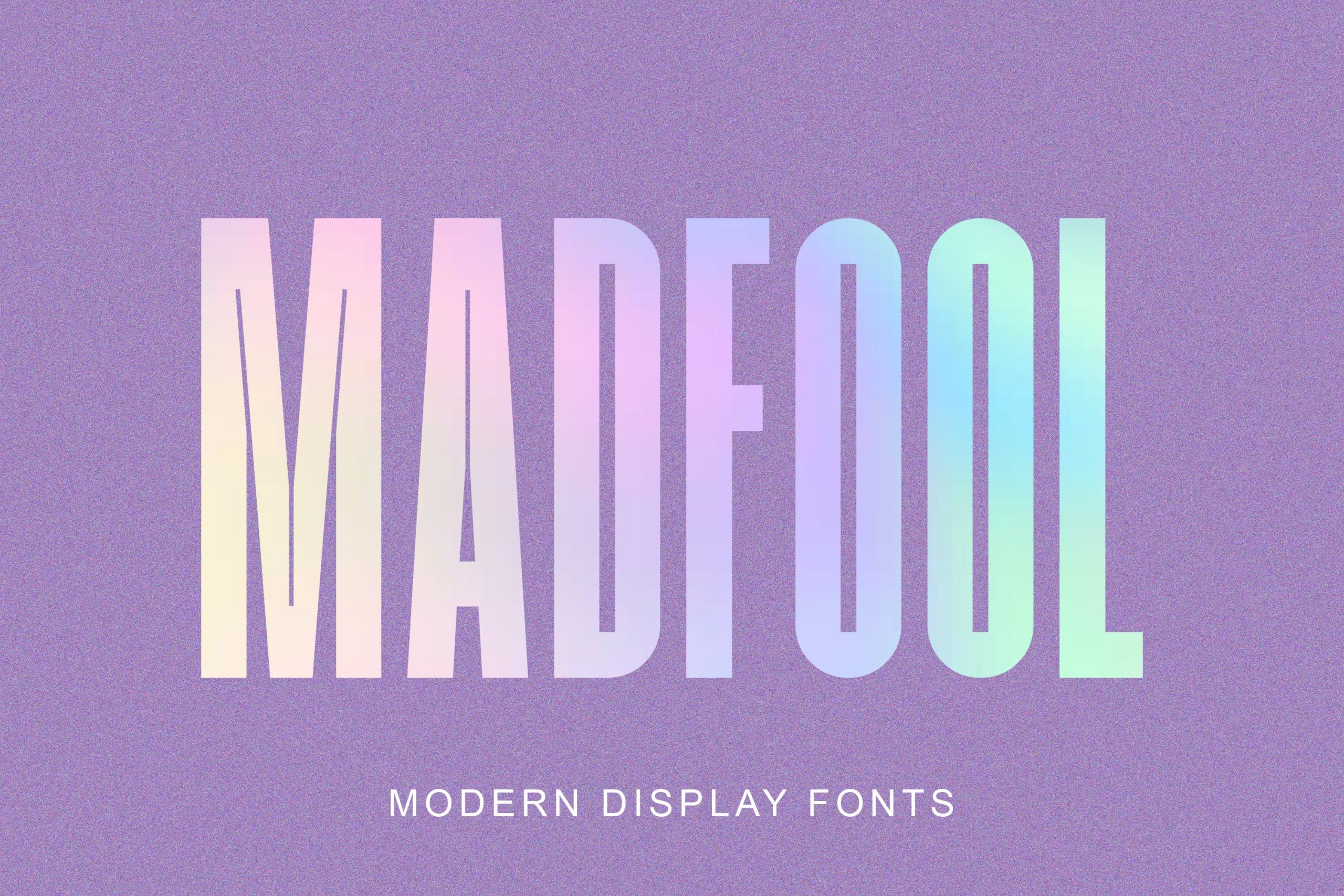
Madfool Font
Madfool font is a tall sans serif display font designed to stand out. Bold strokes and fun characters give Madfool its signature personality; making this typeface powerful yet elegant and unforgettable. Additionally, this font offers extra creative freedom allowing users to add flair.
Madfool Font Supports Over 100 Languages. It can be used in logos, social media posts, movie and book titles as well as short and long texts and is suitable for secondary text fonts featuring serif or sans designs – helping you to create stunning designs! Madfool font is here to help make this possible!
Madfool Display Font